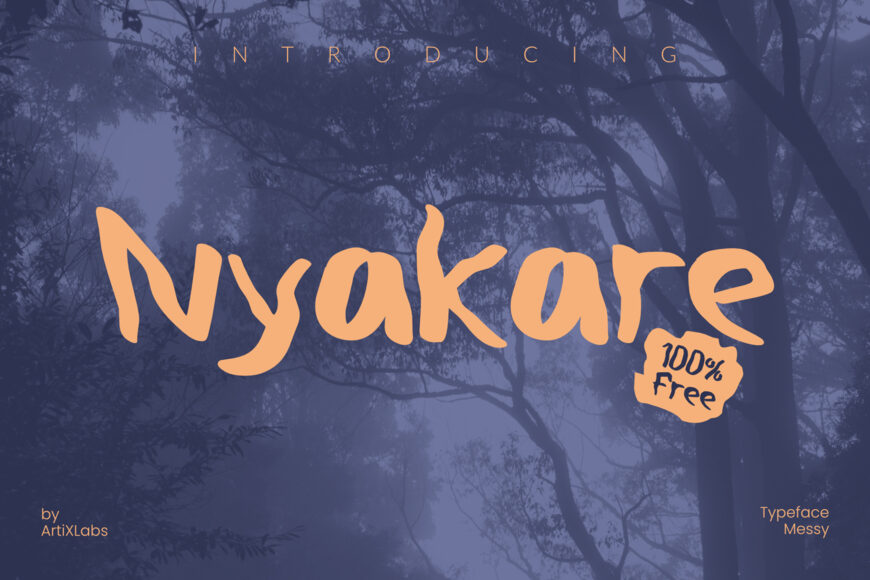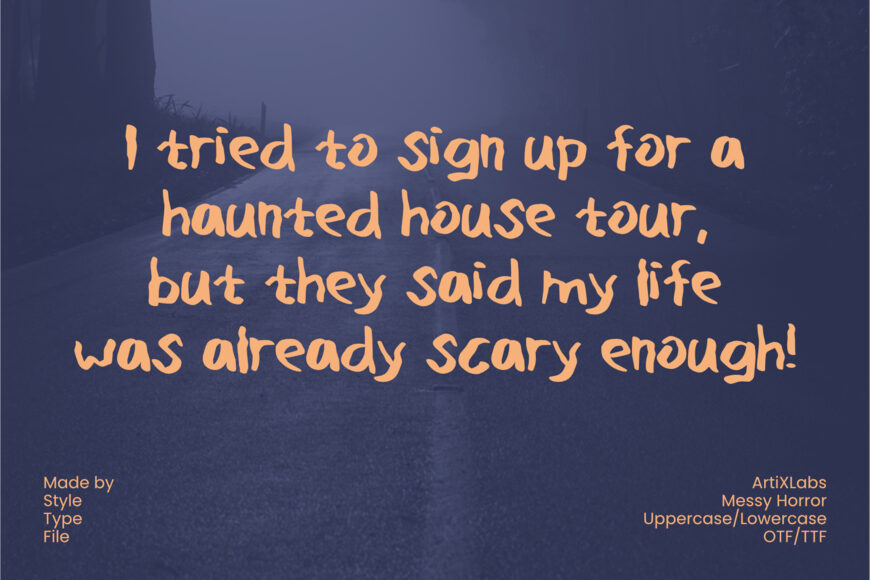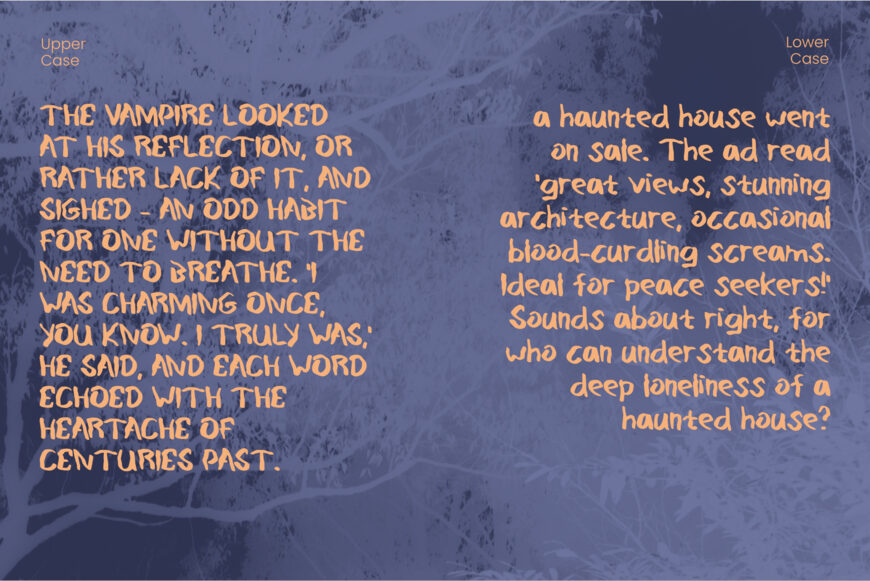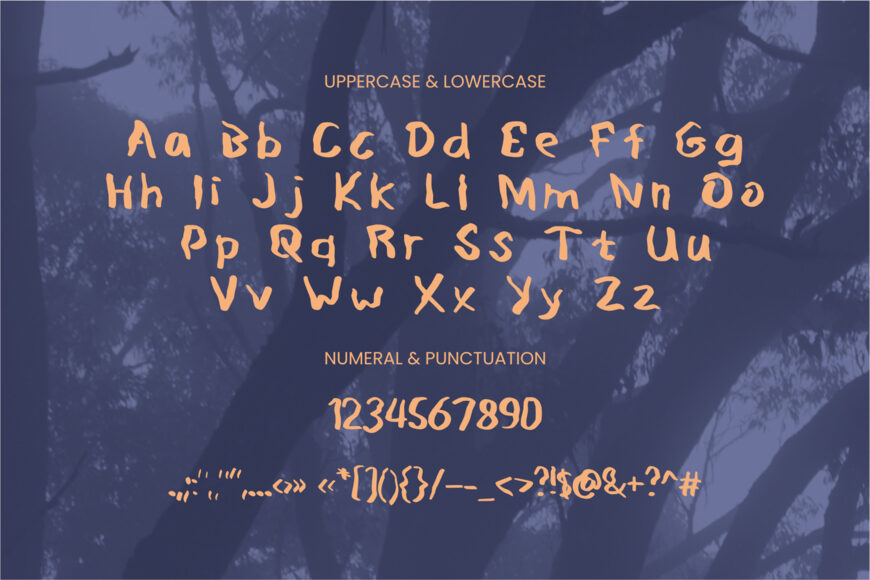
Nyakare by ArtiXLabs is a messy horror display typeface designed with a raw, handwritten aesthetic. Featuring uneven brush strokes, organic letterforms, and playful distortion, it offers a spooky yet whimsical vibe perfect for Halloween themes, haunted house materials, book covers, and dark-themed branding.